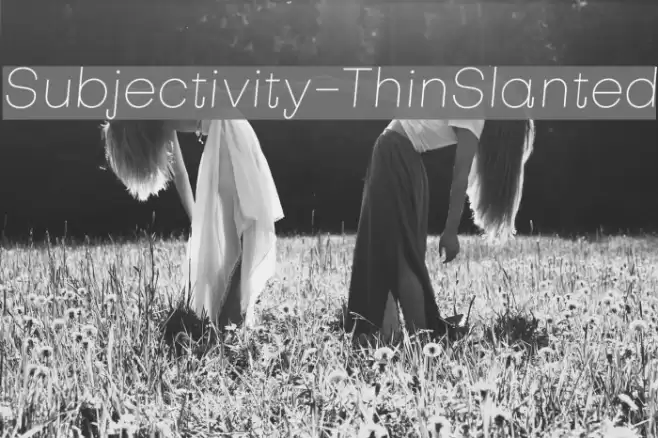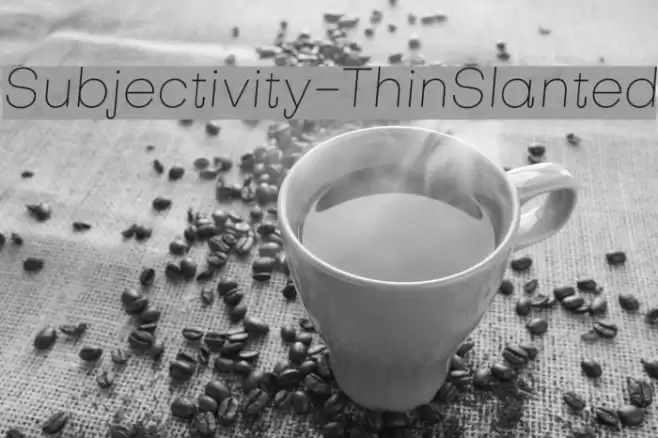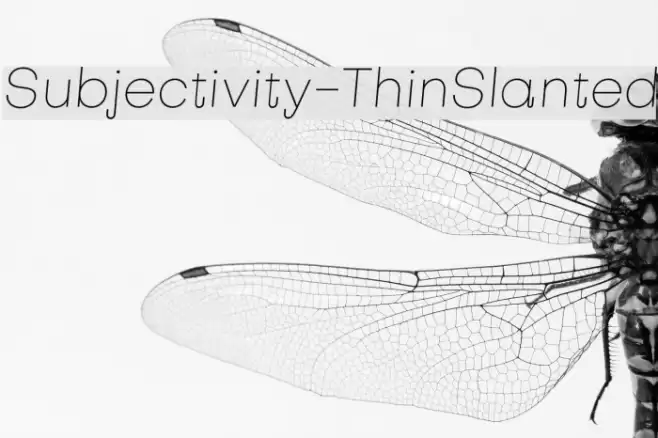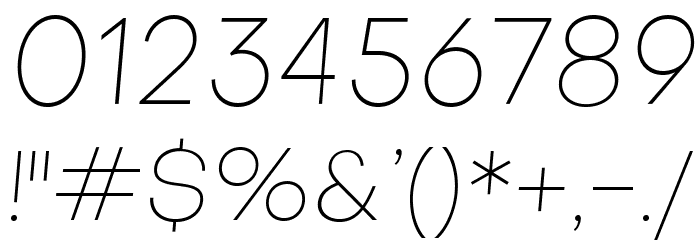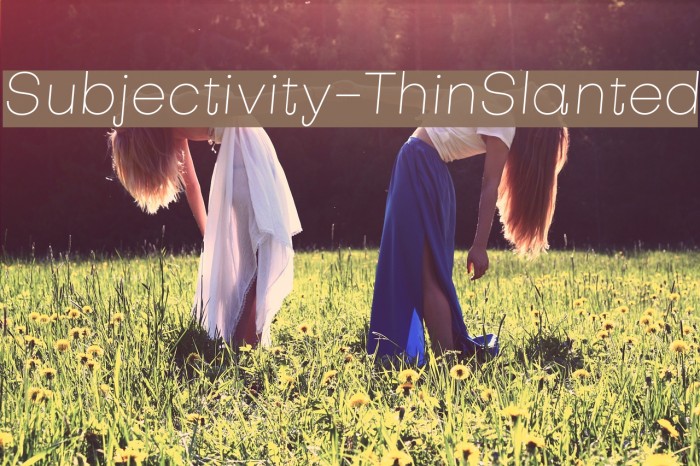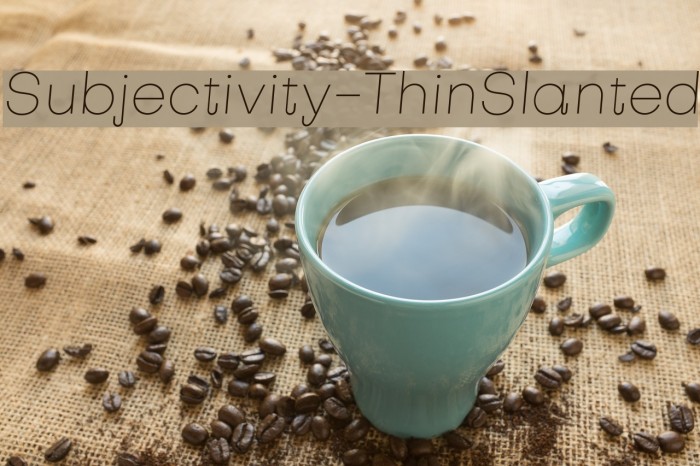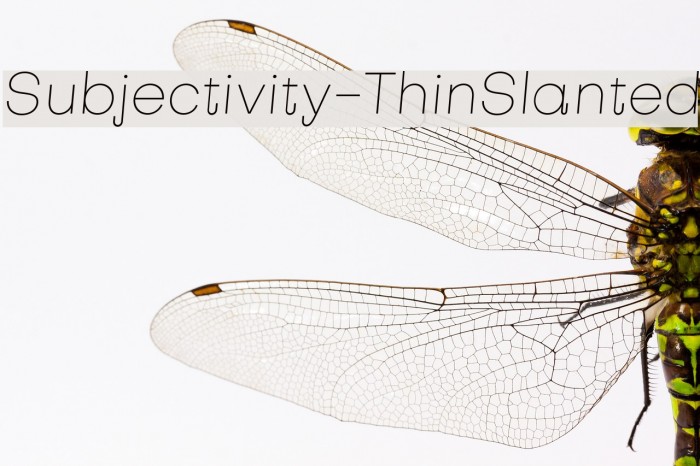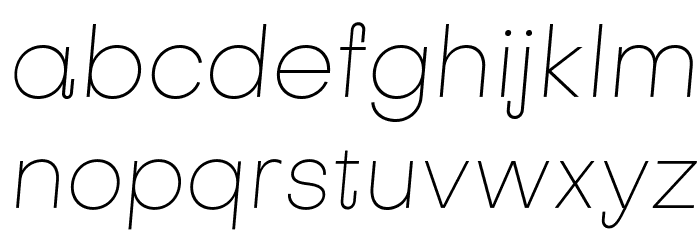
Subjectivity-ThinSlanted Font
Subjectivity-ThinSlanted Description
This font features a sleek, modern design with a thin, slanted style that gives it a dynamic and elegant appearance. The characters are uniformly spaced, contributing to a clean and organized look. The uppercase and lowercase letters maintain a consistent slant, enhancing the font's fluidity and sophistication. The numerals and special characters are designed with the same attention to detail, ensuring a cohesive visual experience. This font's minimalistic approach makes it versatile for various design applications, offering a contemporary aesthetic that is both stylish and functional.
A sleek, thin, and slanted modern font with a clean, elegant style from Uncategorized fonts.
- Proposed Projects: Ideal for modern branding, fashion magazines, elegant invitations, and minimalist web design.
- Weight: Light
- Use Case: Headlines, Logos, Invitations